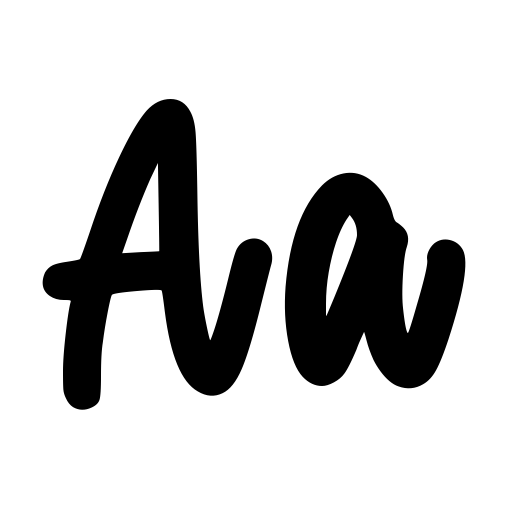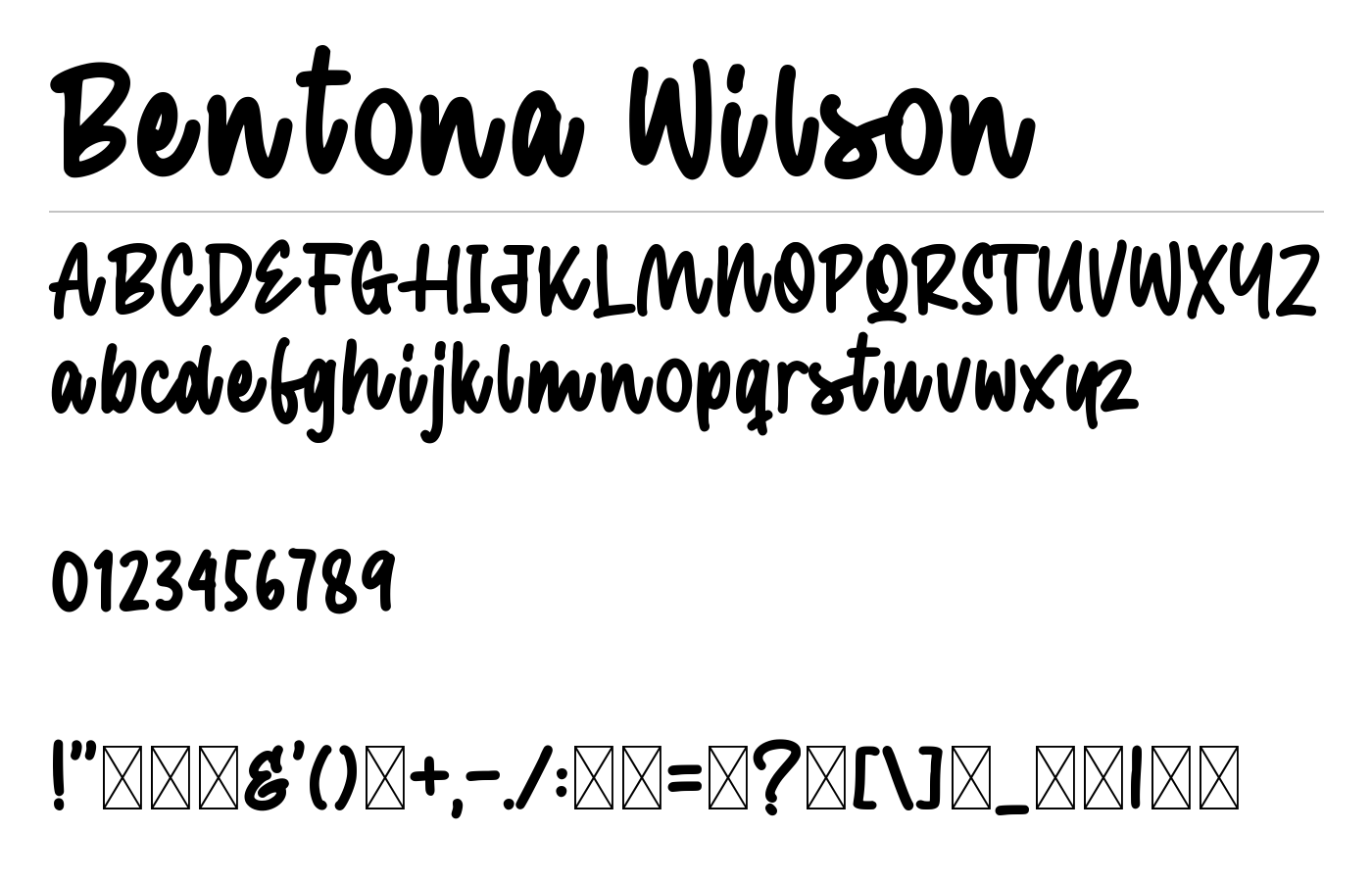
Bentona Wilson is a playful and casual handwritten script font with a friendly, informal vibe. Its moderately bold weight and rounded, smooth strokes give it a natural, approachable feel, making it ideal for creative projects, branding, and personal communication that seek warmth and personality. This font works well in headlines, logos, and social media graphics where a lively and welcoming tone is desired.
Bentona Wilson Font
About Bentona Wilson Font
| Font family | Bentona Wilson Font |
| Designer | M Arif Dwi Prasetyo & Eko Nurcahyo |